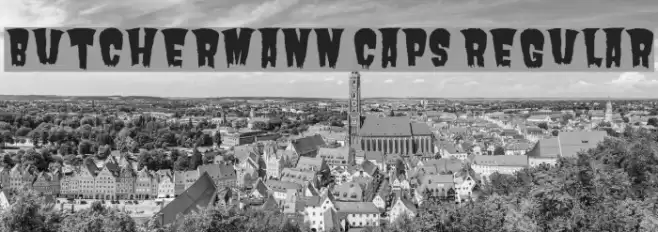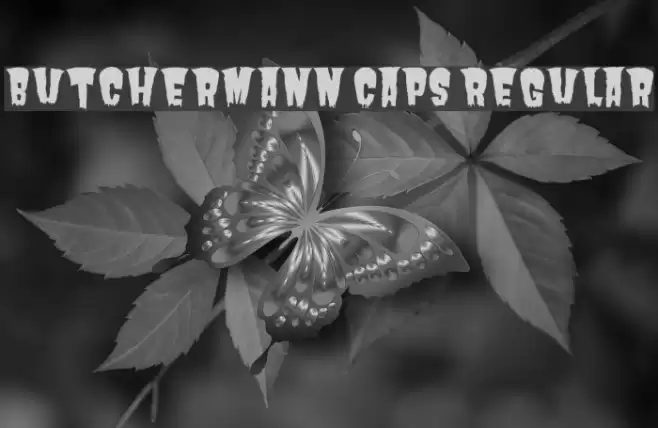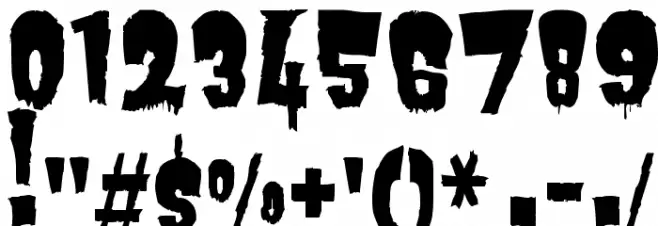
Butchermann Caps Regular Font
Butchermann Caps Regular Description
This font features a bold and dramatic style with a distressed, dripping effect that gives it a horror or Halloween-themed appearance. The characters are uppercase and have a jagged, uneven baseline, adding to the eerie and unsettling aesthetic. The font's thick strokes and irregular edges create a sense of movement and chaos, making it ideal for designs that require a spooky or grunge vibe. The numbers and special characters maintain the same distressed look, ensuring consistency across all text elements.
A bold, distressed font with a dripping effect, perfect for horror themes from Uncategorized fonts.
- Proposed Projects: Ideal for Halloween posters, horror movie titles, themed event invitations, and spooky merchandise designs.